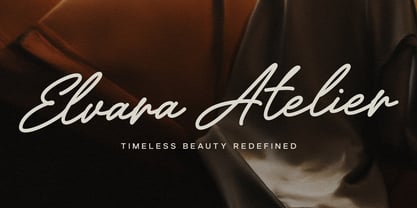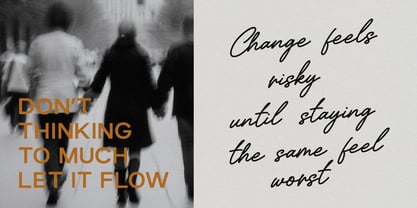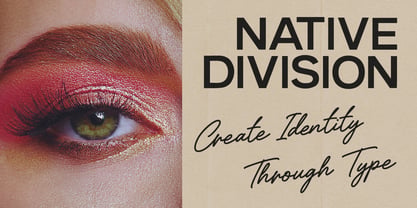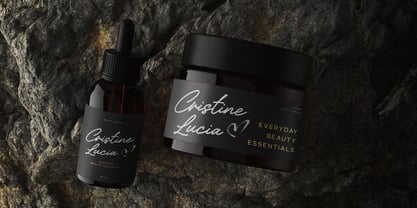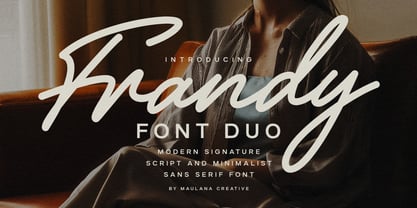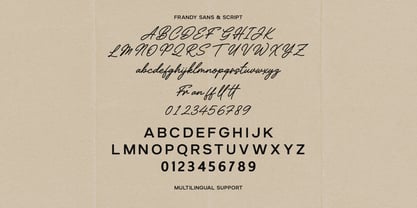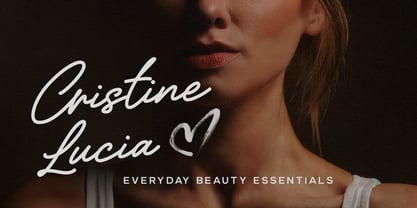
Frandy
par Maulana Creative
La famille de polices Frandy a été conçue par Gilang Maulana et publiée par Maulana Creative. Frandy contient 2 styles et options de package familial. En savoir plus sur cette famille
Frandy is a modern font duo that pairs an expressive signature script with a clean, minimalist sans-serif. The flowing script delivers an elegant handwritten look with subtle ligatures and natural strokes, while the solid, geometric sans-serif offers perfect contrast and exceptional legibility. Together, these two styles create a visual synergy that elevates creative projects effortlessly.
Designed for versatile branding and graphic design projects, this font duo excels in logo creation, packaging design, luxury cosmetics branding, editorial layouts, social media graphics, and wedding typography. Full multilingual support and complete character sets ensure high-performance typography across diverse creative applications.